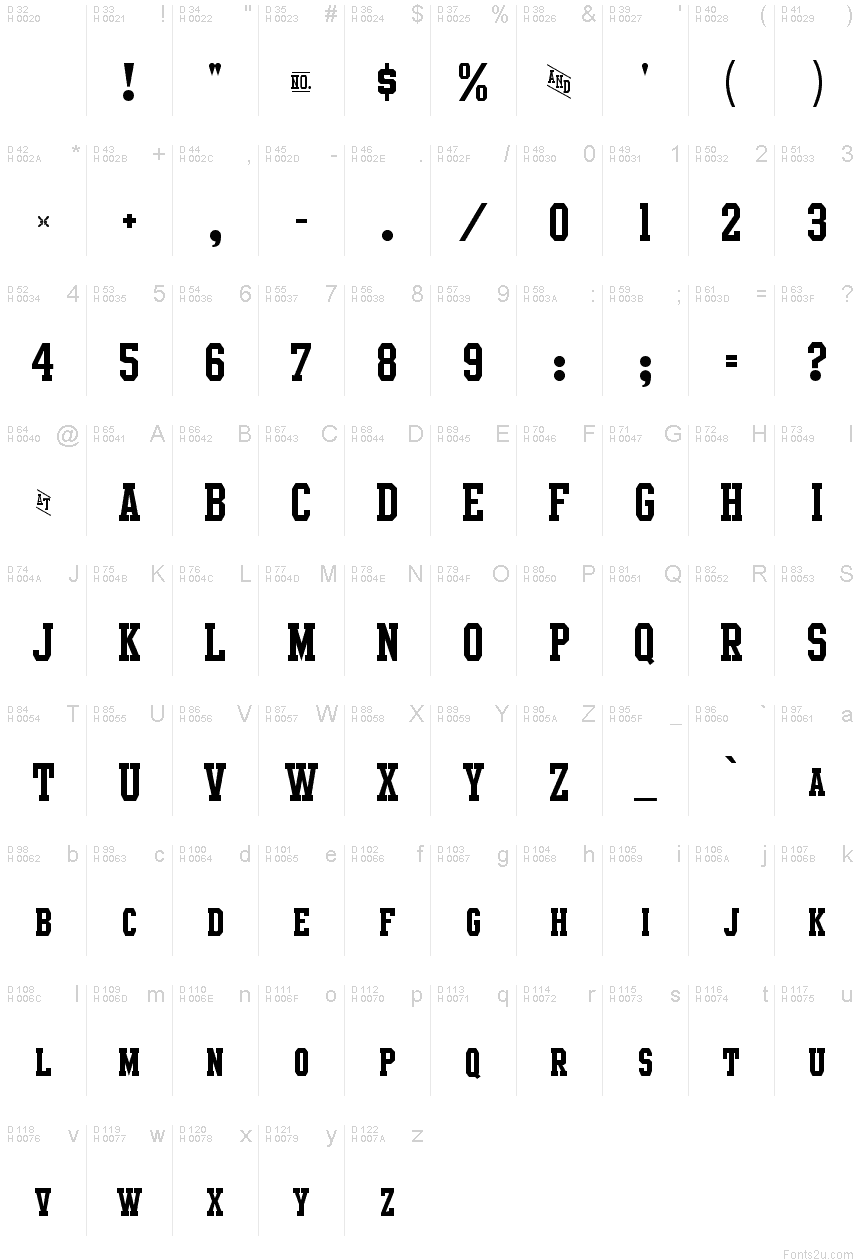
Intramural Small Caps JL
Intramural Small Caps JL font by Jeff Levine & Ray Larabie is a free old-school slab serif typeface that brings instant gymnasium energy to your layouts. Blocky, squared-off letters with sturdy verticals and chunky serifs echo vintage varsity jerseys and scoreboard lettering, giving every word that loud, bleacher-rattling presence. The small caps construction keeps headlines tight and uniform, so even short team names and acronyms feel solid and commanding.
Using Intramural Small Caps JL, your titles snap into place on sports posters, intramural league logos, school banners, pep-rally flyers, spirit merch, and retro athletic branding. This free font really shines when set large with a bit of extra tracking to let those heavy forms breathe. Pair it with a simple sans serif for body copy to keep the focus on its bold, old-gym charm.
A further variant of "Intramural JL" with small caps in the lower case keystrokes, centered to the larger letters.